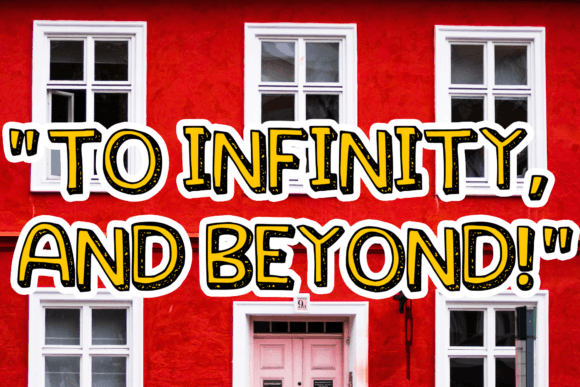
Hey Retro Font
Hey Retro! is a cool 3D rough kids-friendly display font, you’ll love it if you want to create something with a ’90s theme. It will elevate a wide range of design projects to the highest level. You can use this font for many design ideas such as stickers, t-shirt designs, amazing logo designs, magazine or book covers, comics, cartoon drawings, and many more. This font will add a cool touch to your designs!